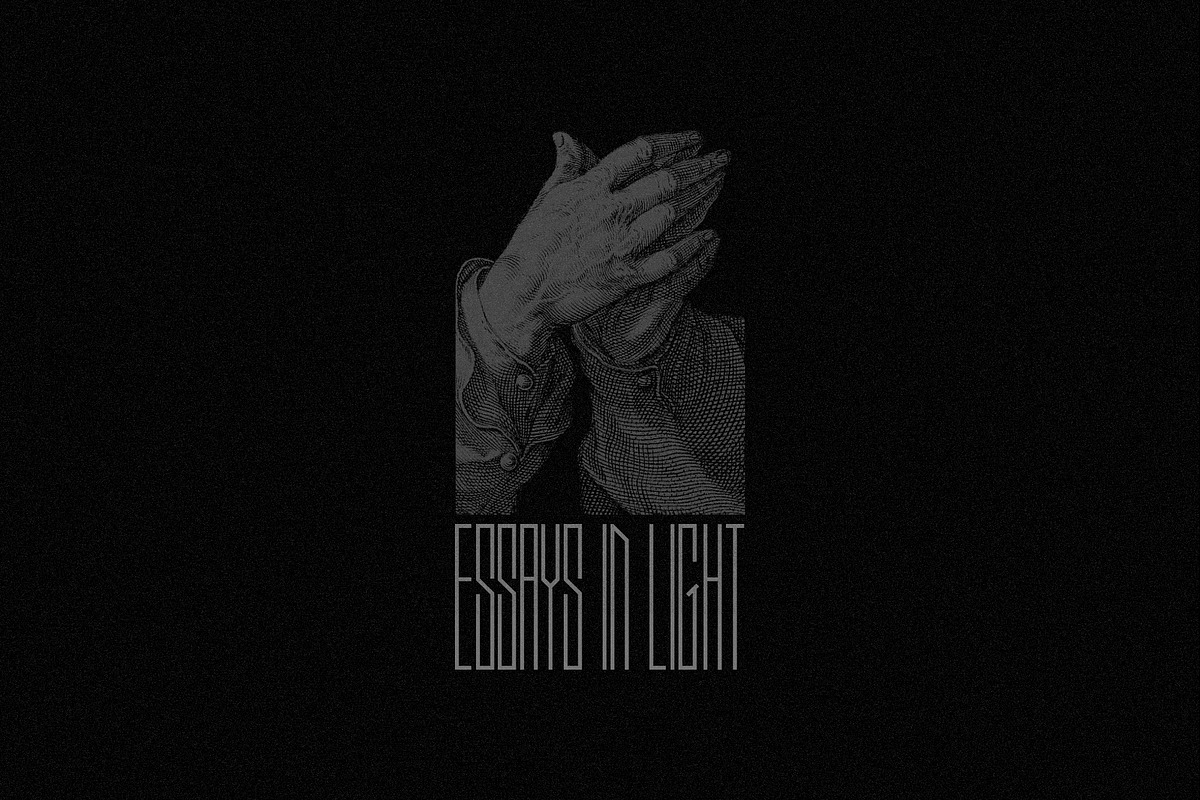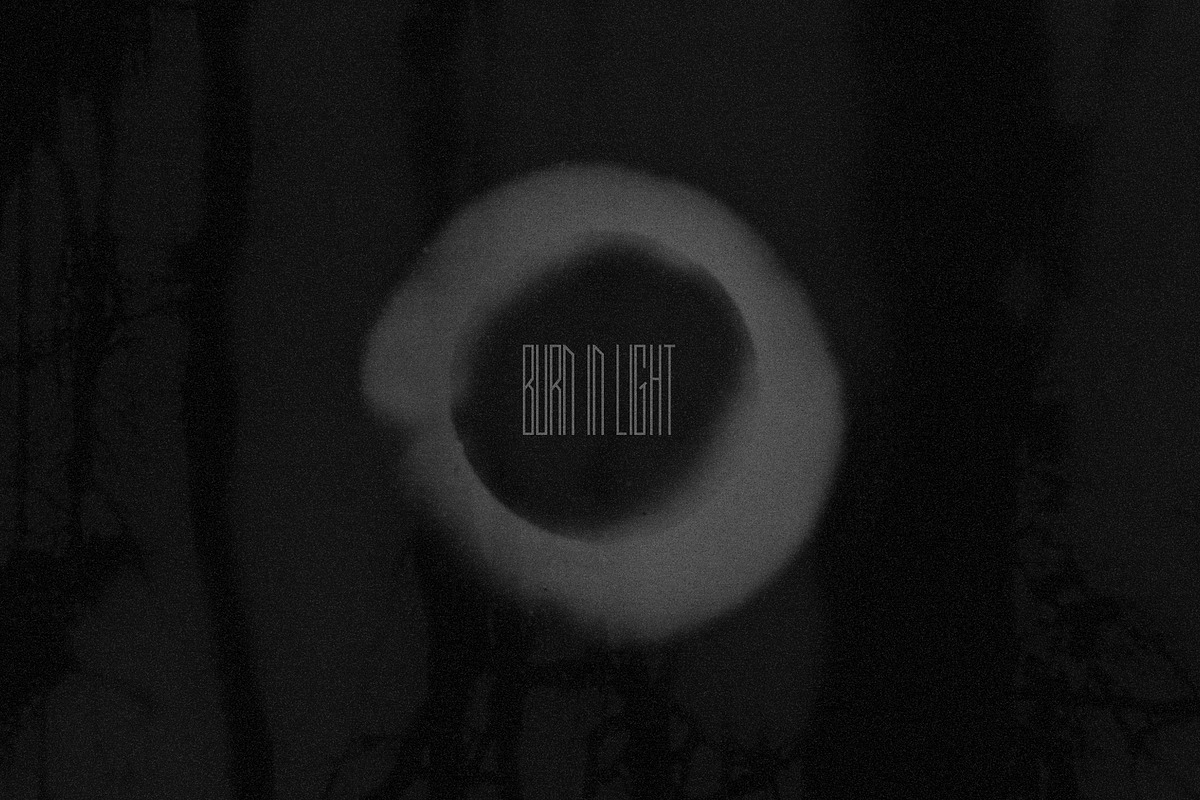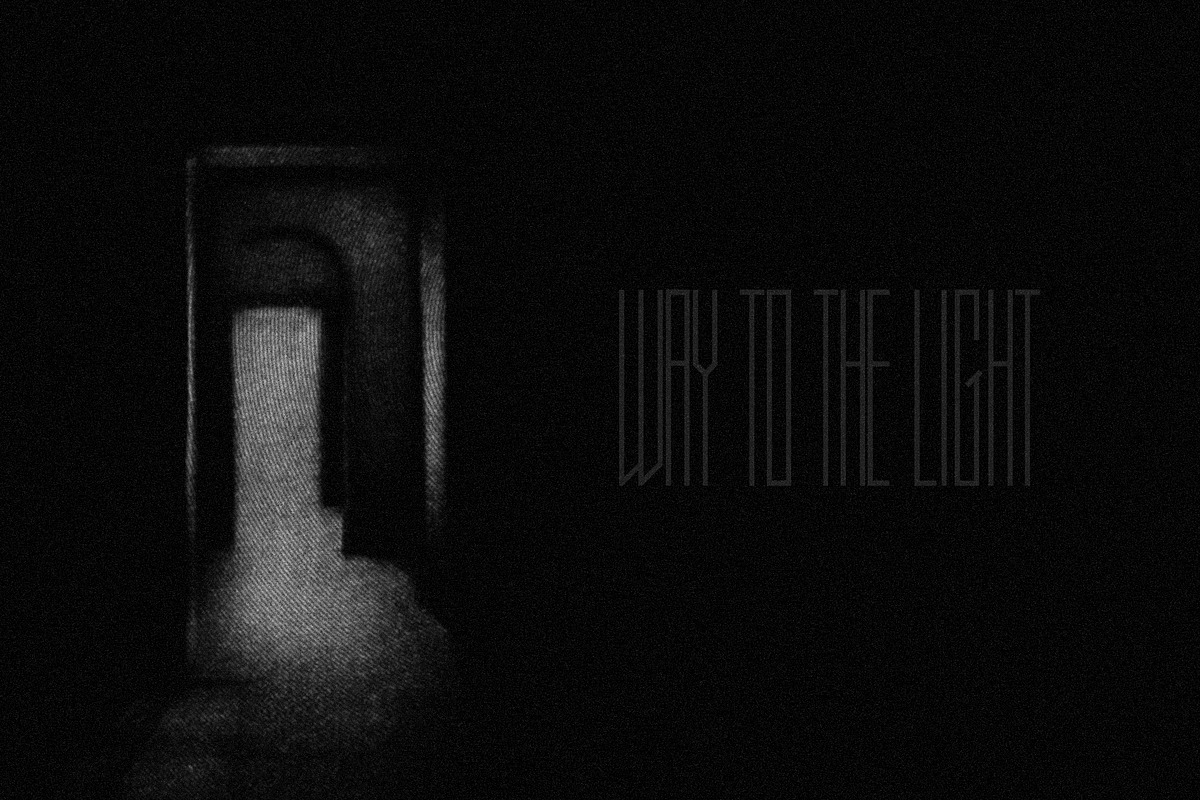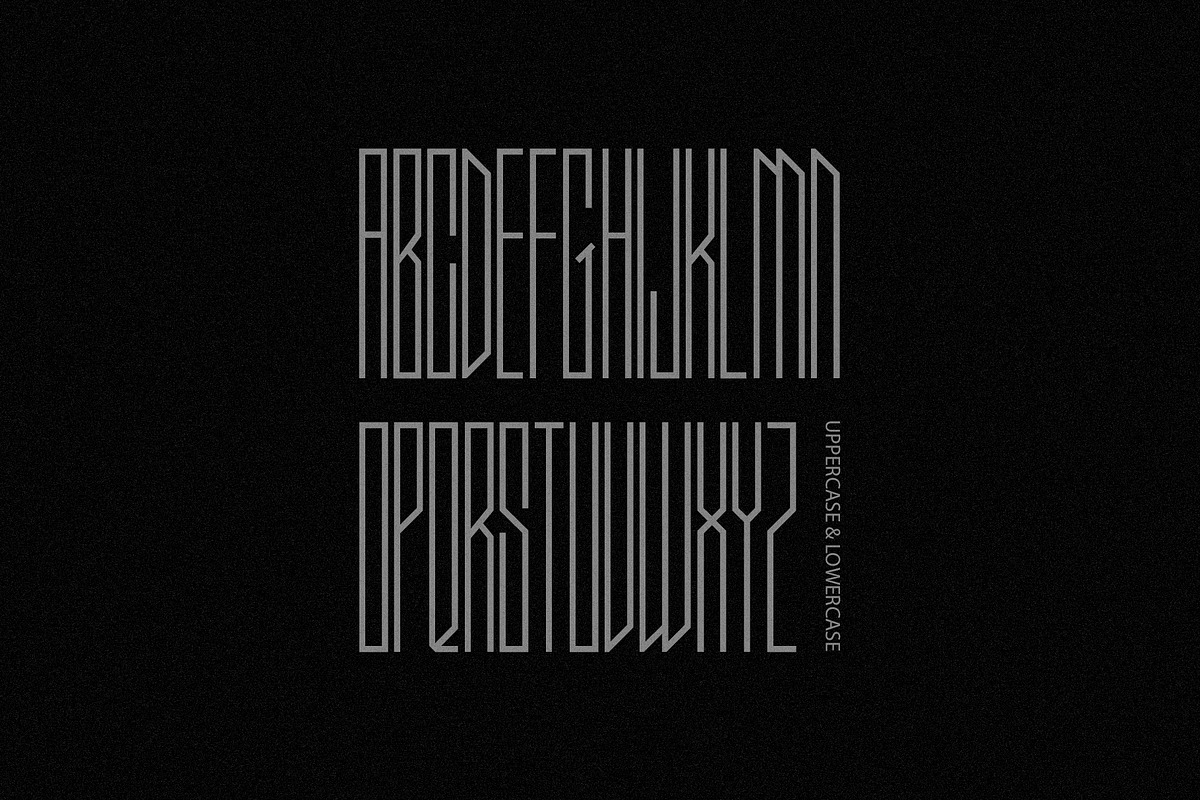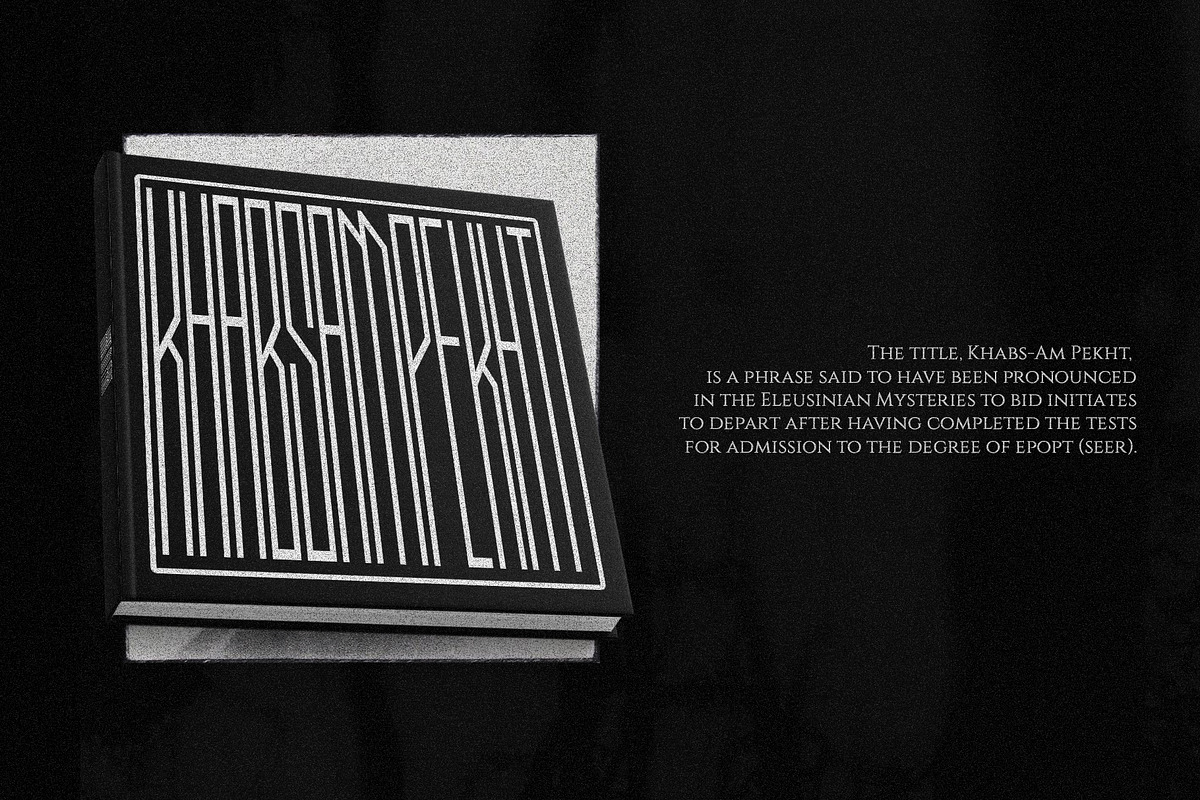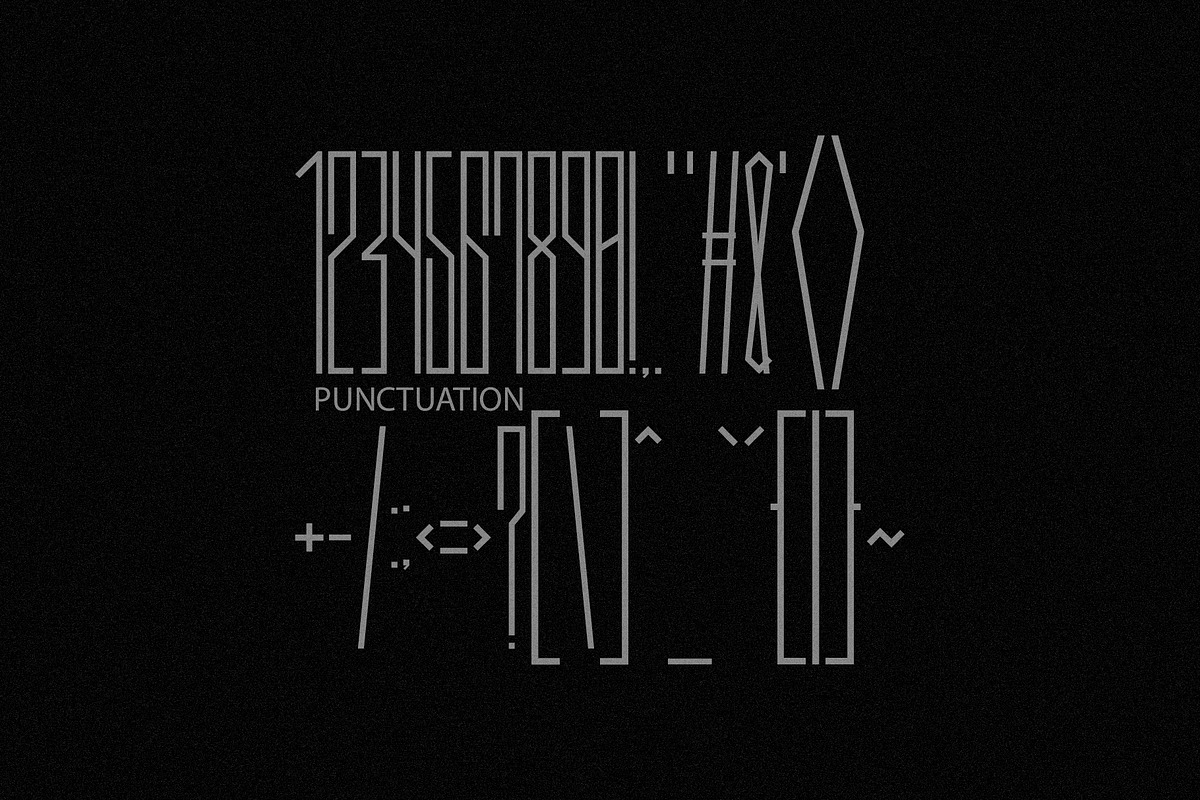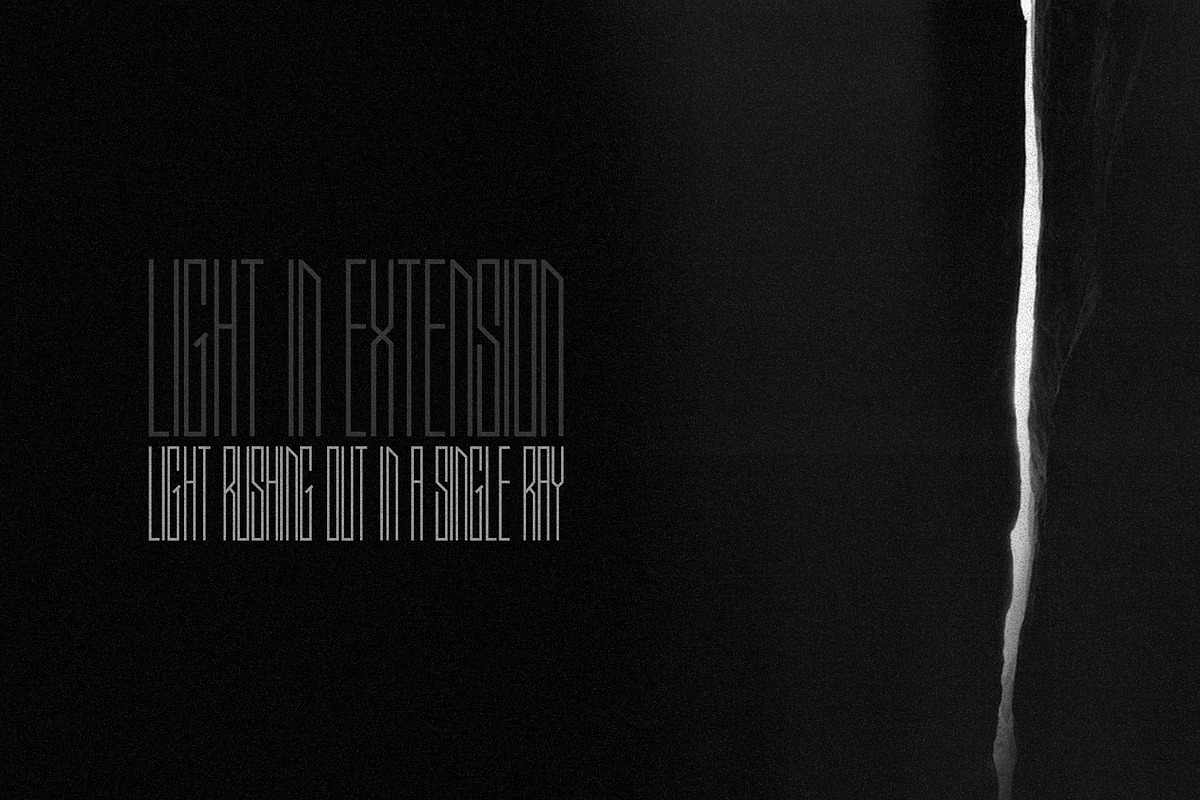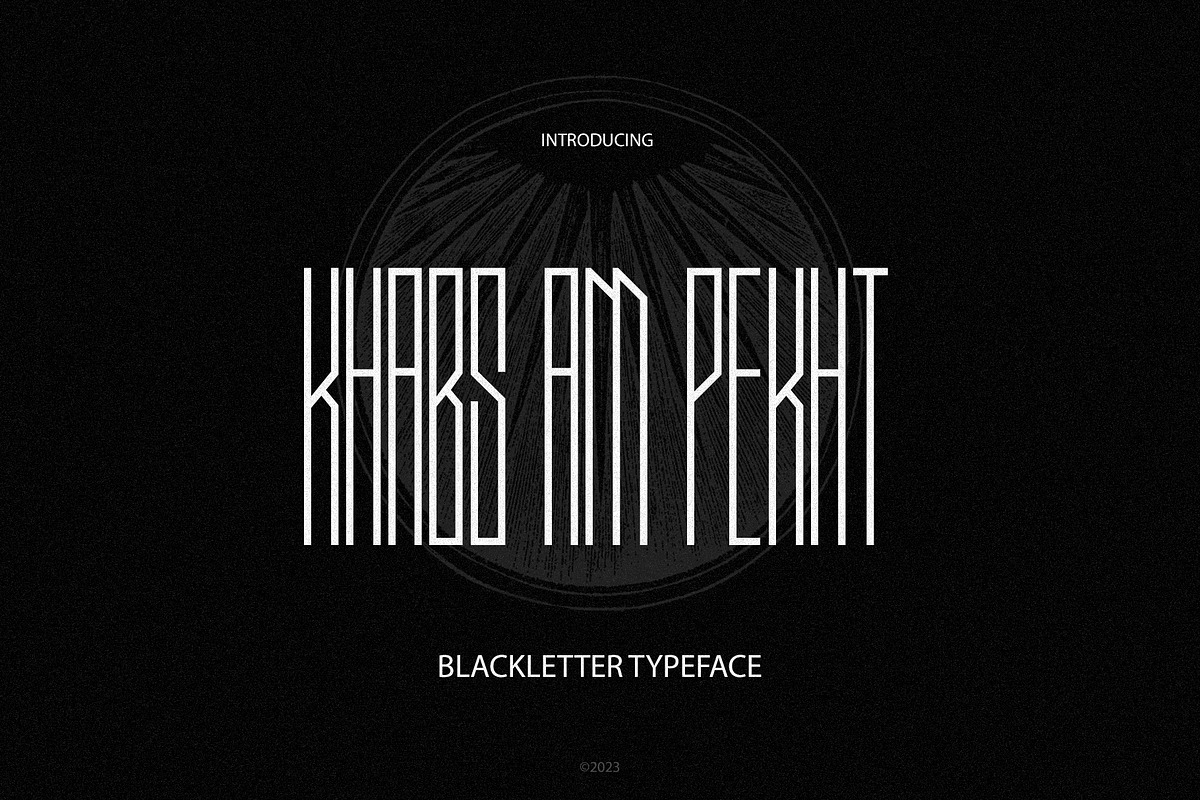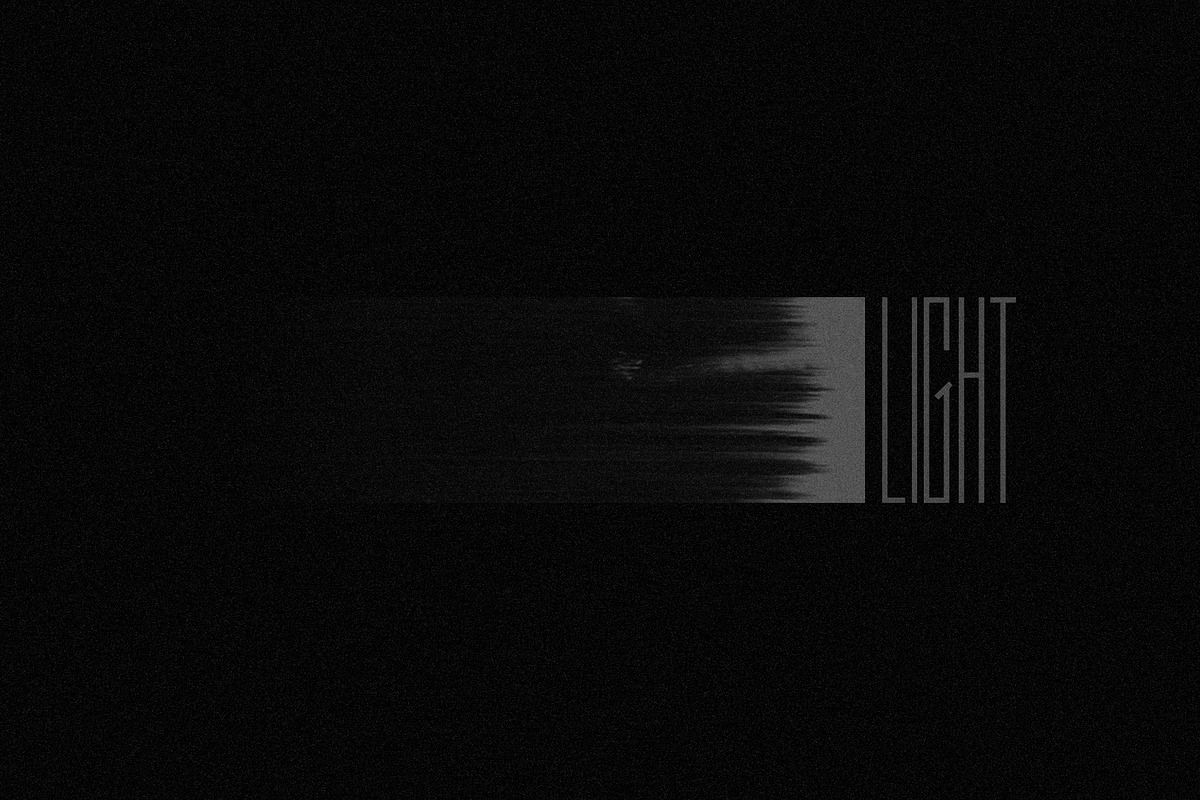
KHABS AM PEKHT
KHABS AM PEKHT - is a minimal blackletter font family.
It includes uppercase (uppercase and lowercase same size) letters, numbers and punctuation.